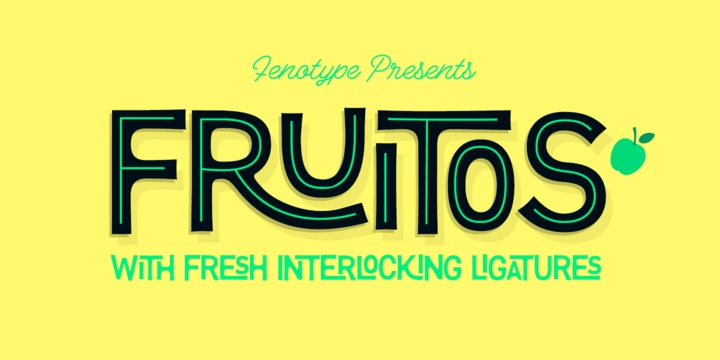
Fruitos Font
Fruitos Font is perfect for branding projects, logo design, packaging design, food and beverage labels, restaurant menus, children's book illustrations, playful advertising campaigns, social media graphics, product packaging, and creative poster designs.
Fruitos Font is exciting because it captures the essence of fresh, organic produce with its playful and vibrant character design. This font brings a sense of natural freshness and fun to any project, making it ideal for brands that want to convey health, vitality, and approachability. Its unique letterforms are inspired by the organic shapes and curves found in nature, particularly fruits, which gives it an authentic and wholesome appeal.
Fruitos Font family includes regular, bold, italic, and bold italic variations, providing designers with versatile options for different design needs and hierarchical text arrangements.
This delightful typeface combines modern typography trends with organic aesthetics, making Fruitos Font Free Download an excellent choice for contemporary design projects. The font's rounded edges and smooth curves create a friendly and approachable feeling that resonates well with audiences across different age groups. Its carefully crafted letterforms ensure excellent readability while maintaining its distinctive personality.
Whether you're working on health food packaging, children's educational materials, or eco-friendly brand identity, Fruitos Font delivers the perfect balance of professionalism and playfulness. The font's versatility extends to both digital and print applications, making it suitable for websites, mobile apps, business cards, brochures, and large-format displays.
Designers appreciate Fruitos Font for its ability to communicate freshness and natural quality without sacrificing legibility. The font works exceptionally well in both headline and body text applications, though it truly shines when used for display purposes where its character can be fully appreciated.